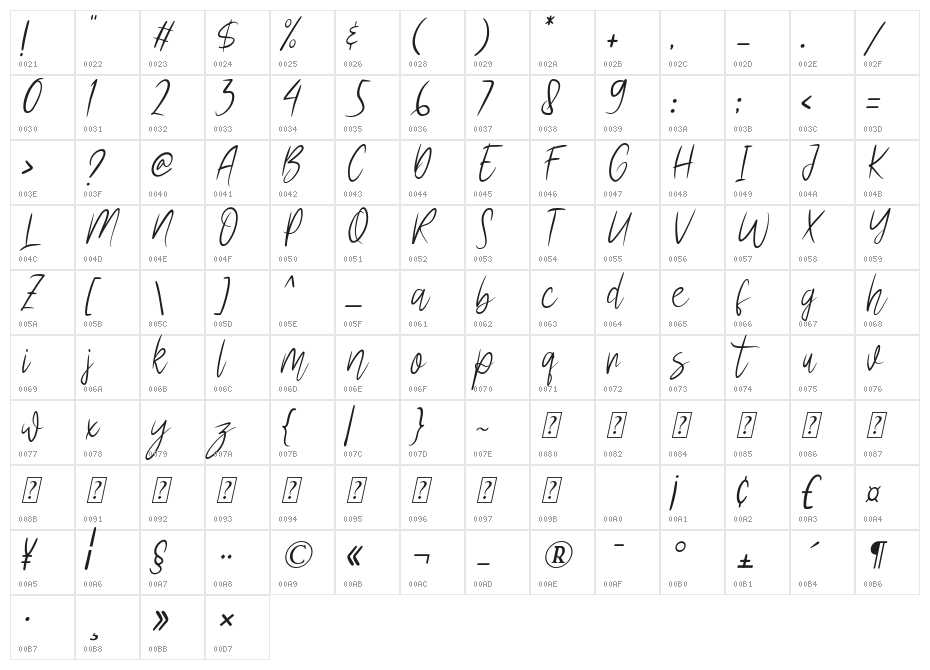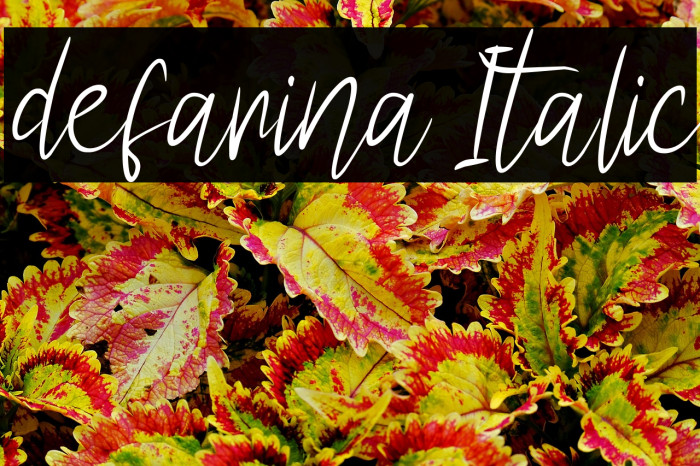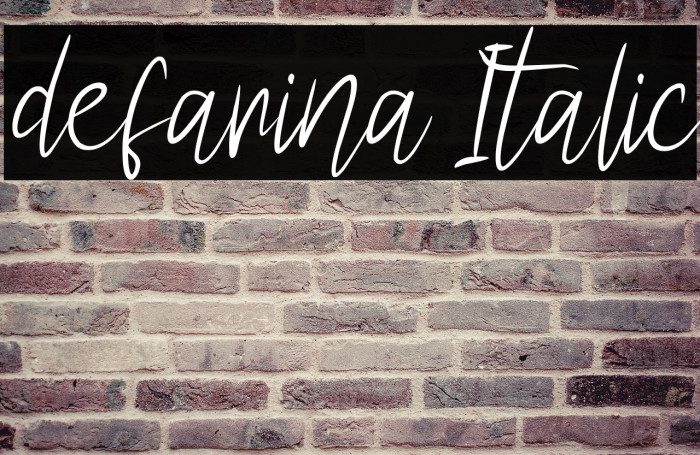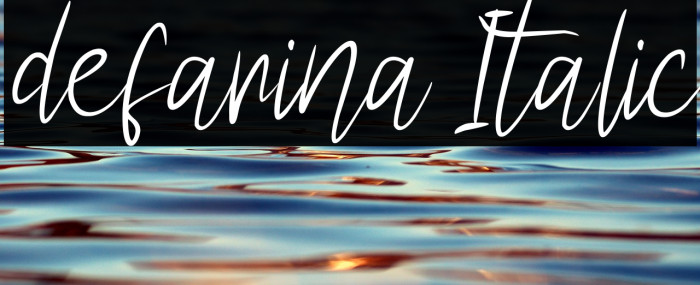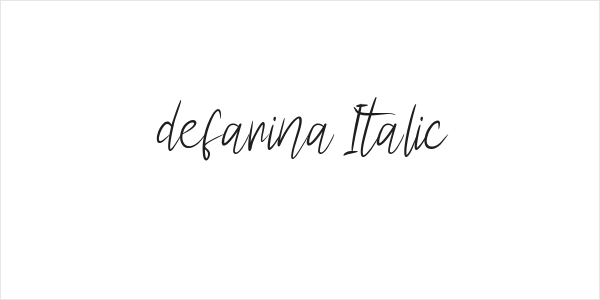
defarina Italic Font
defarina Italic Description
This font exudes a dynamic and fluid style, characterized by its handwritten, cursive appearance. The letters are elegantly slanted, giving a sense of movement and grace. The strokes are varied in thickness, adding a lively and personal touch to the text. The uppercase letters are bold and prominent, while the lowercase letters maintain a consistent flow, enhancing readability. Numbers and special characters are crafted with the same attention to detail, ensuring a cohesive look across all elements. This font is ideal for projects that require a personal, artistic flair.
| Proposed Projects | Ideal for wedding invitations, greeting cards, personal branding, and artistic projects. |